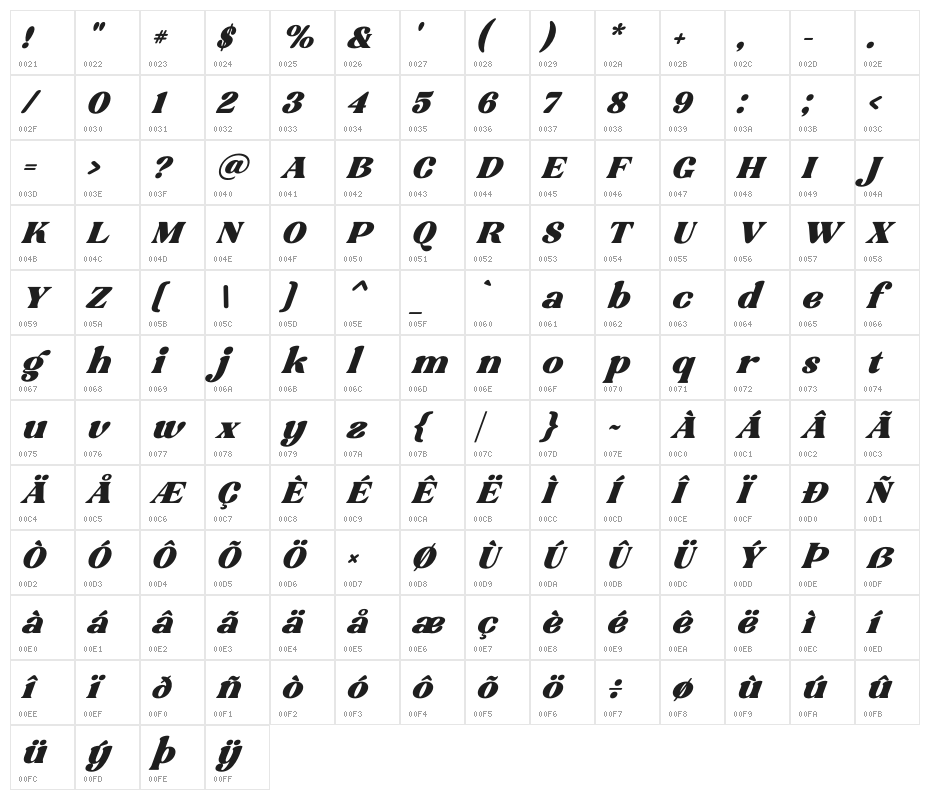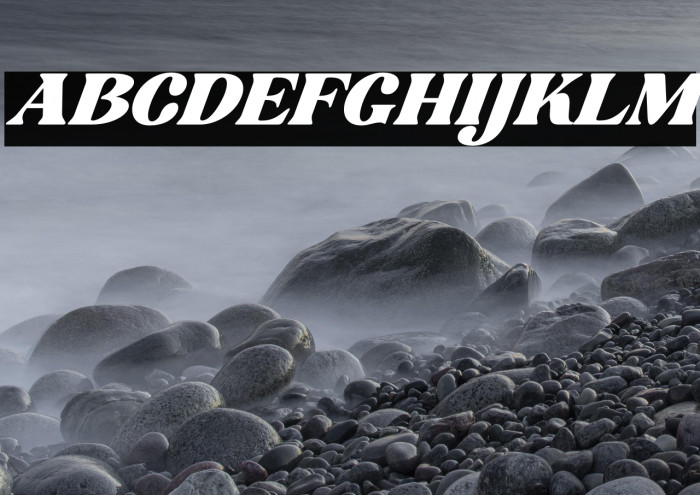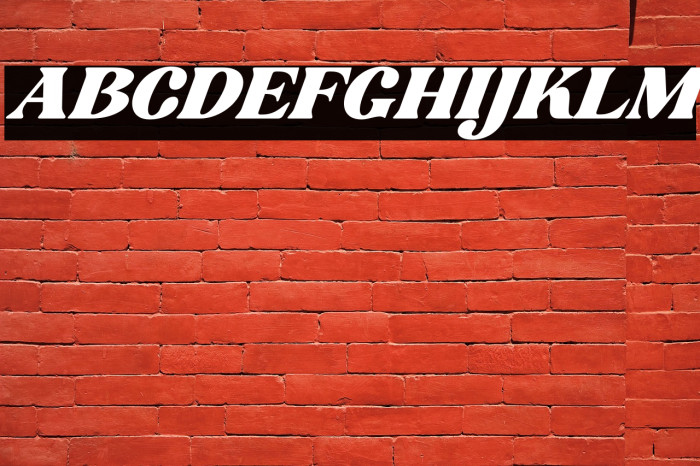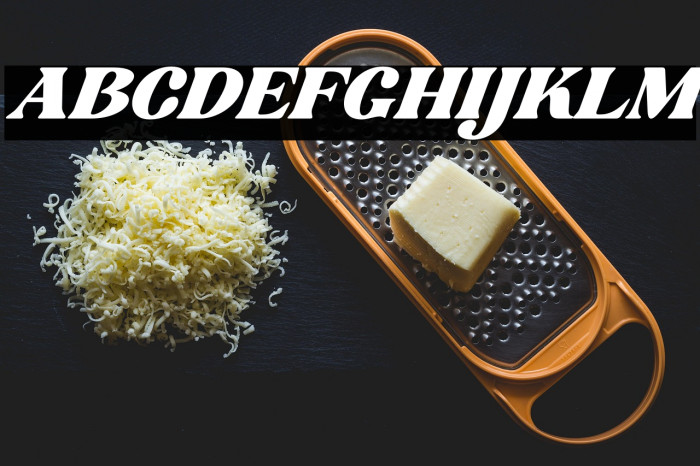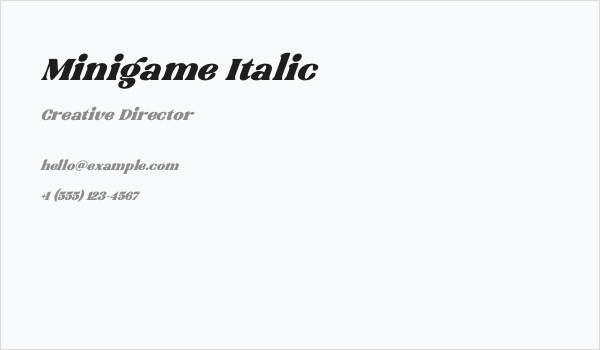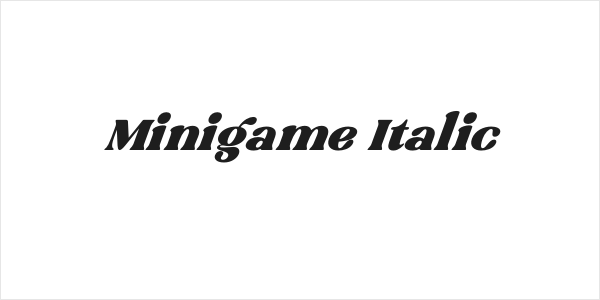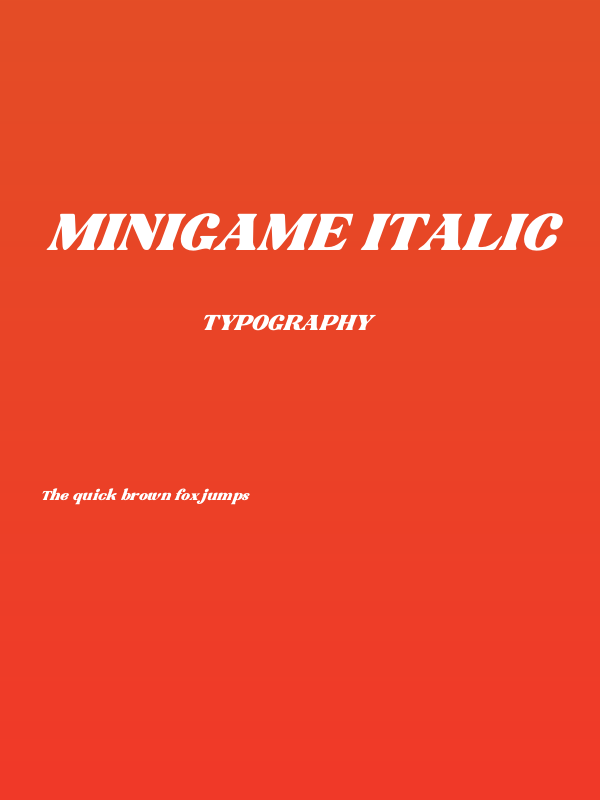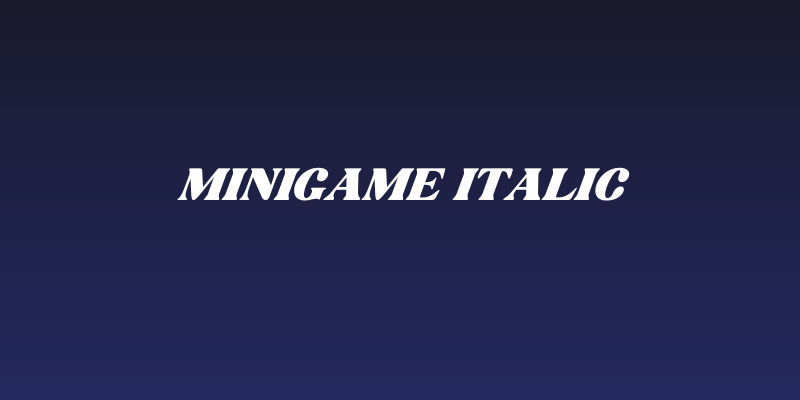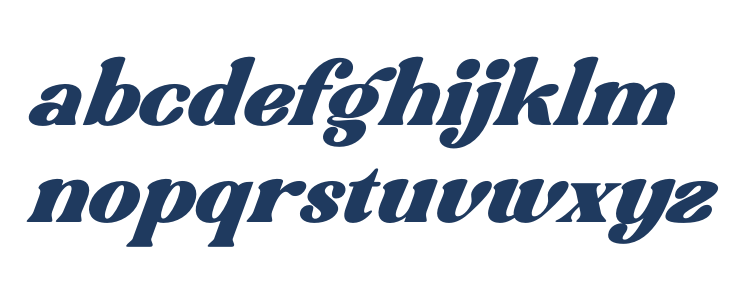
Minigame Italic Font
Minigame Italic Description
This font features a bold and dynamic italic style, characterized by its thick strokes and pronounced slant. The uppercase letters have a strong presence with sharp serifs, while the lowercase letters maintain a consistent flow, enhancing readability. The numerals are equally bold, ensuring visibility and impact. Special characters are designed with the same boldness, making them stand out. The overall design exudes a sense of energy and movement, making it suitable for attention-grabbing text.
| Proposed Projects | Ideal for headlines, posters, and branding materials that require a bold statement. |